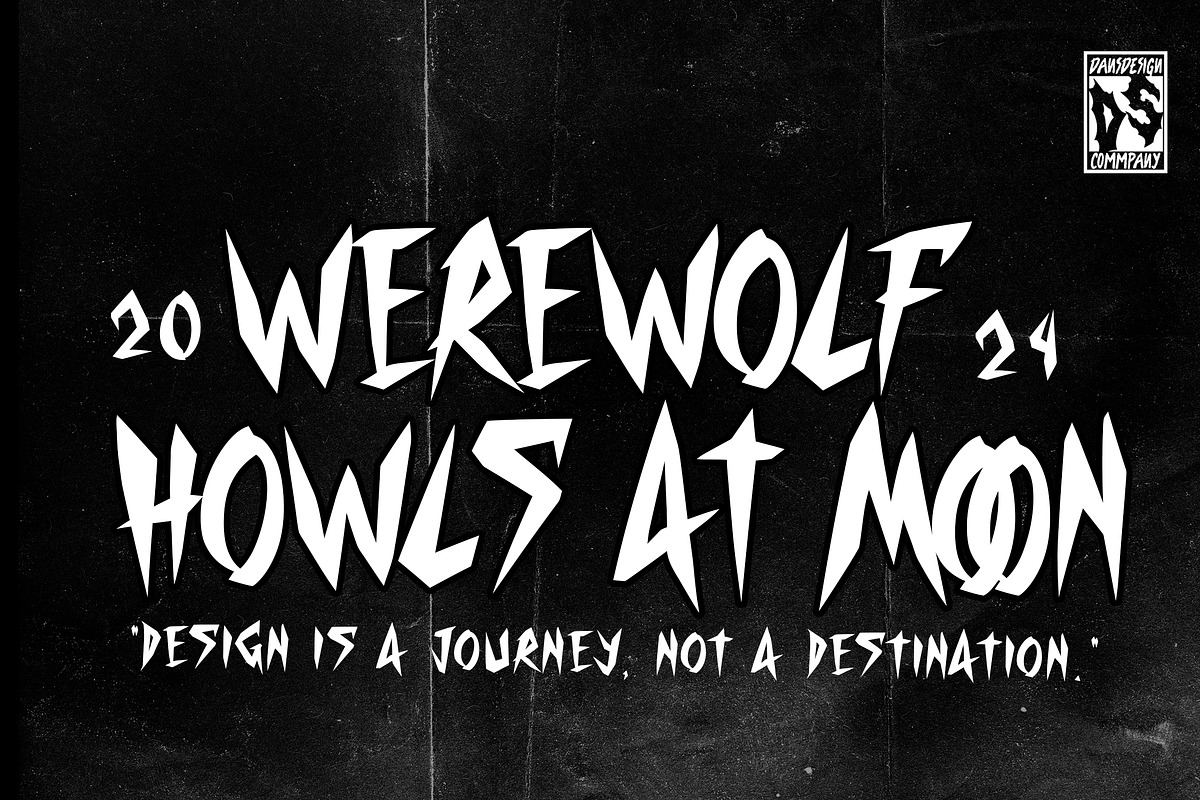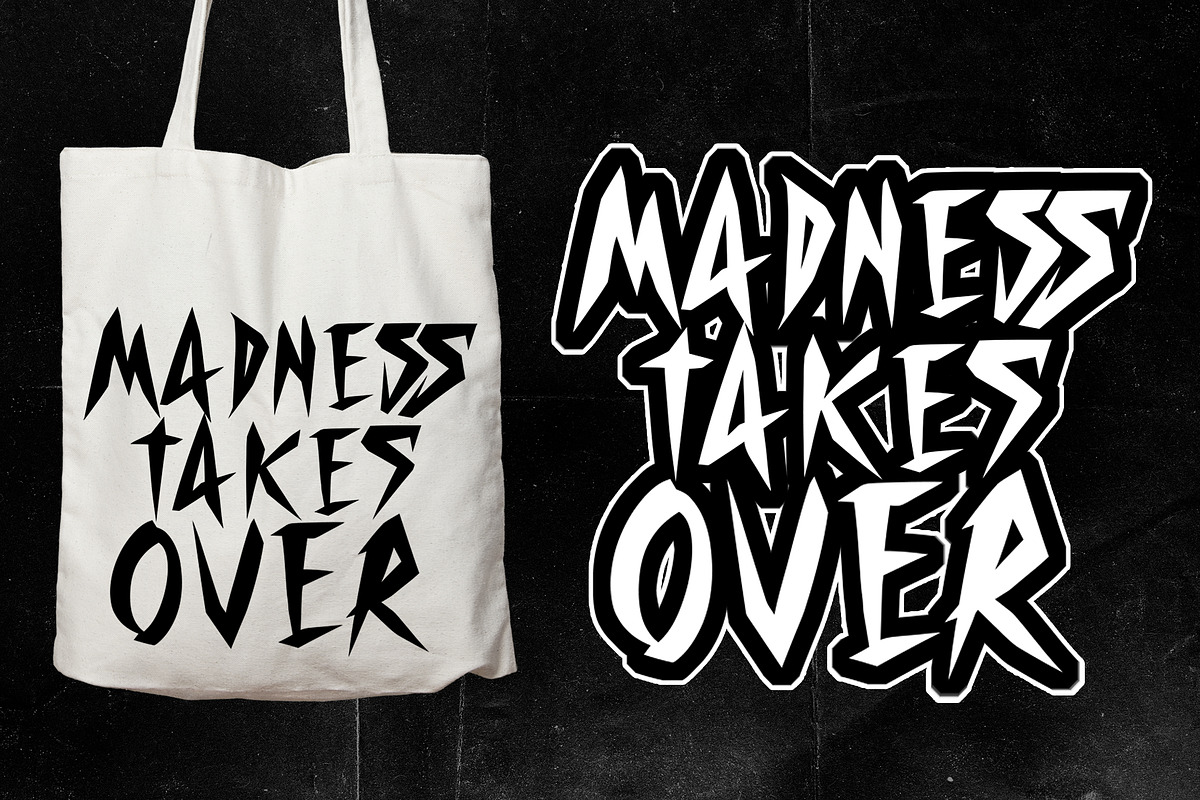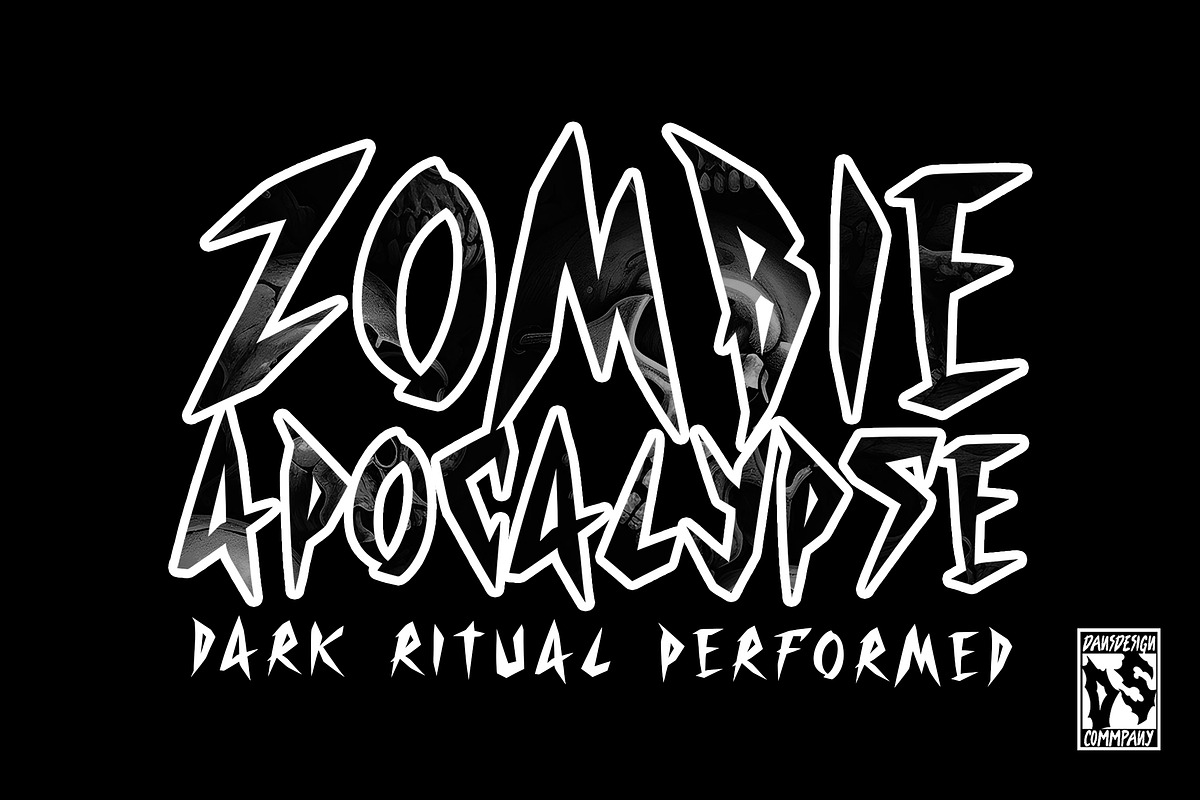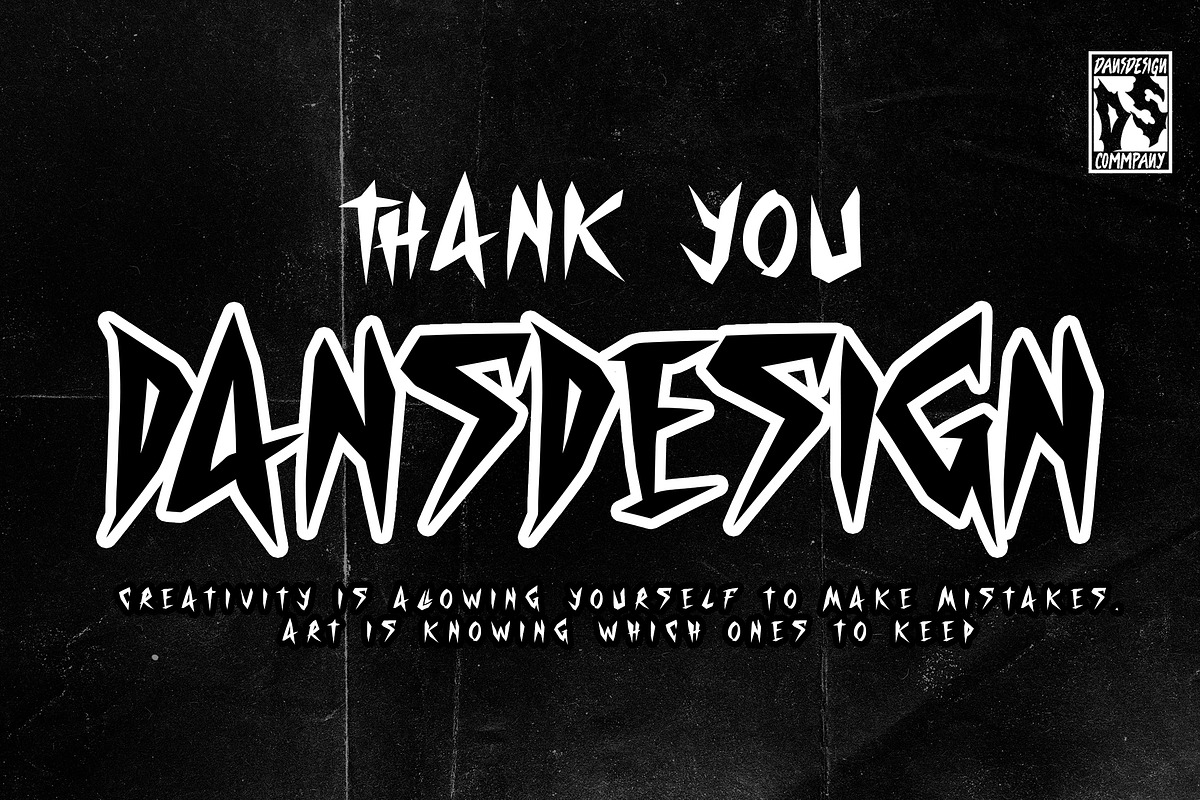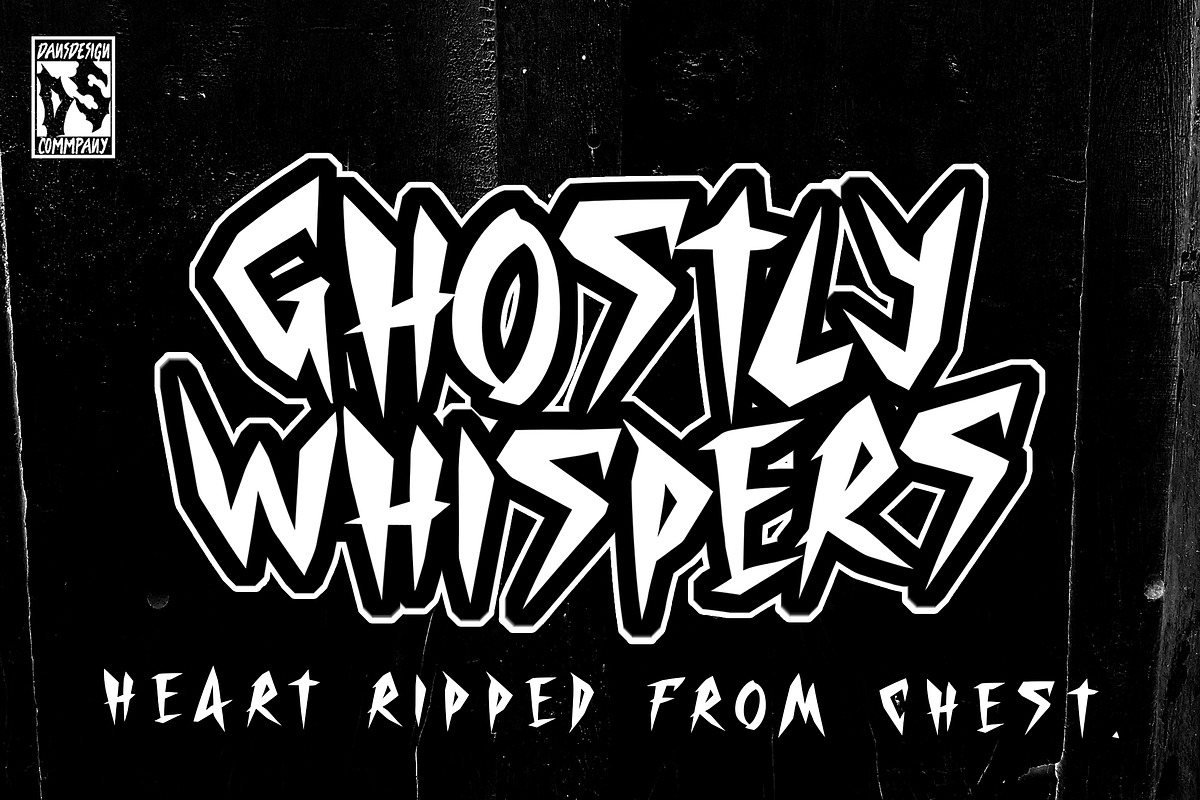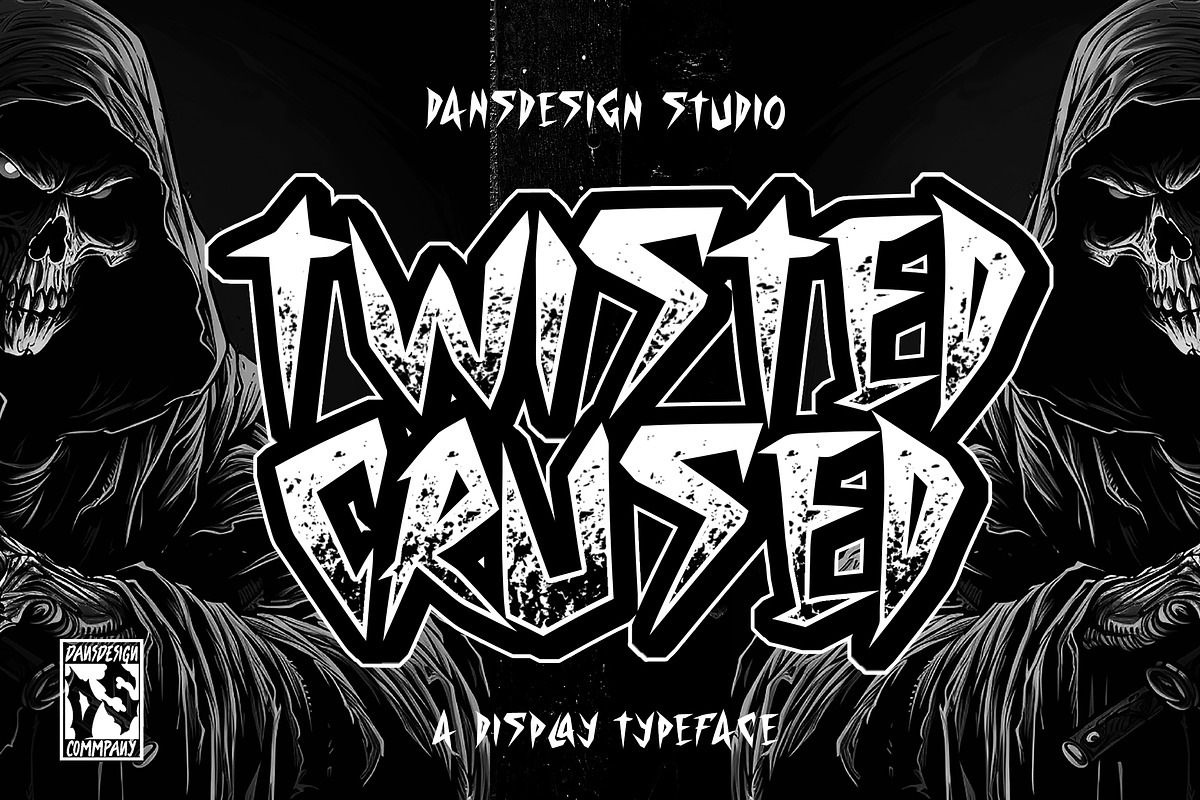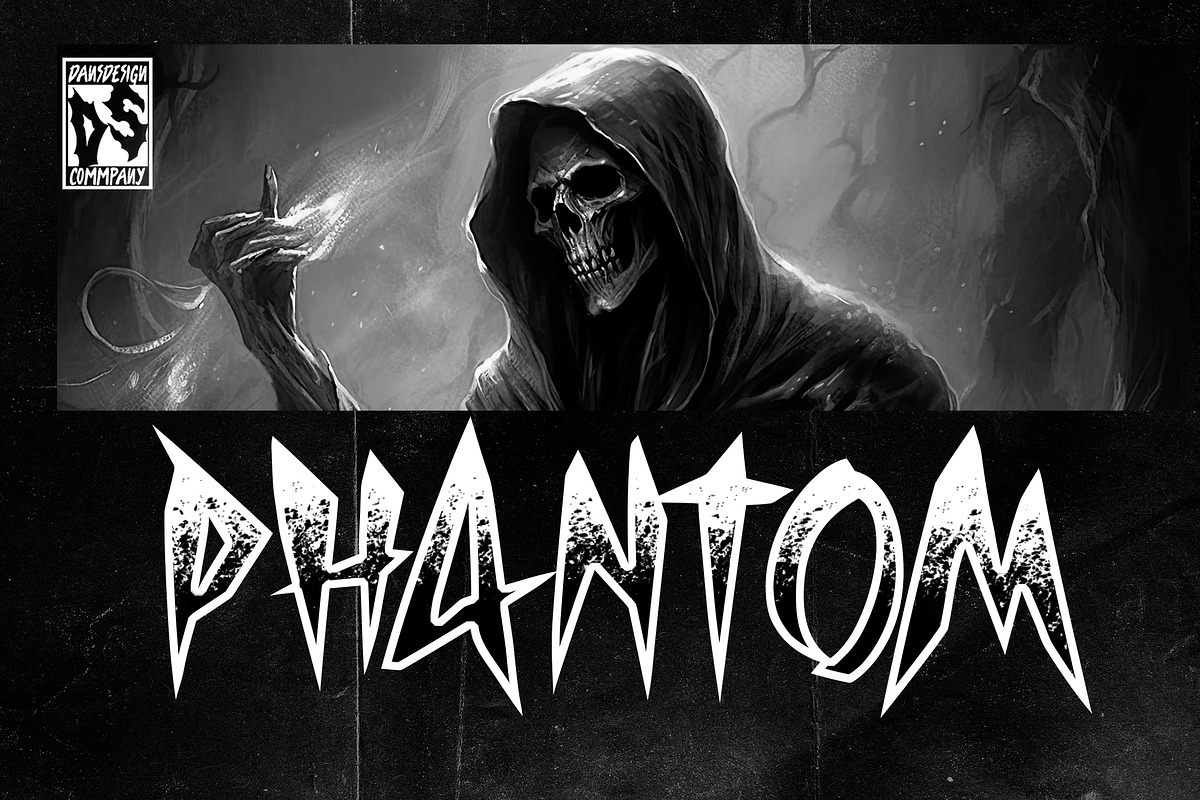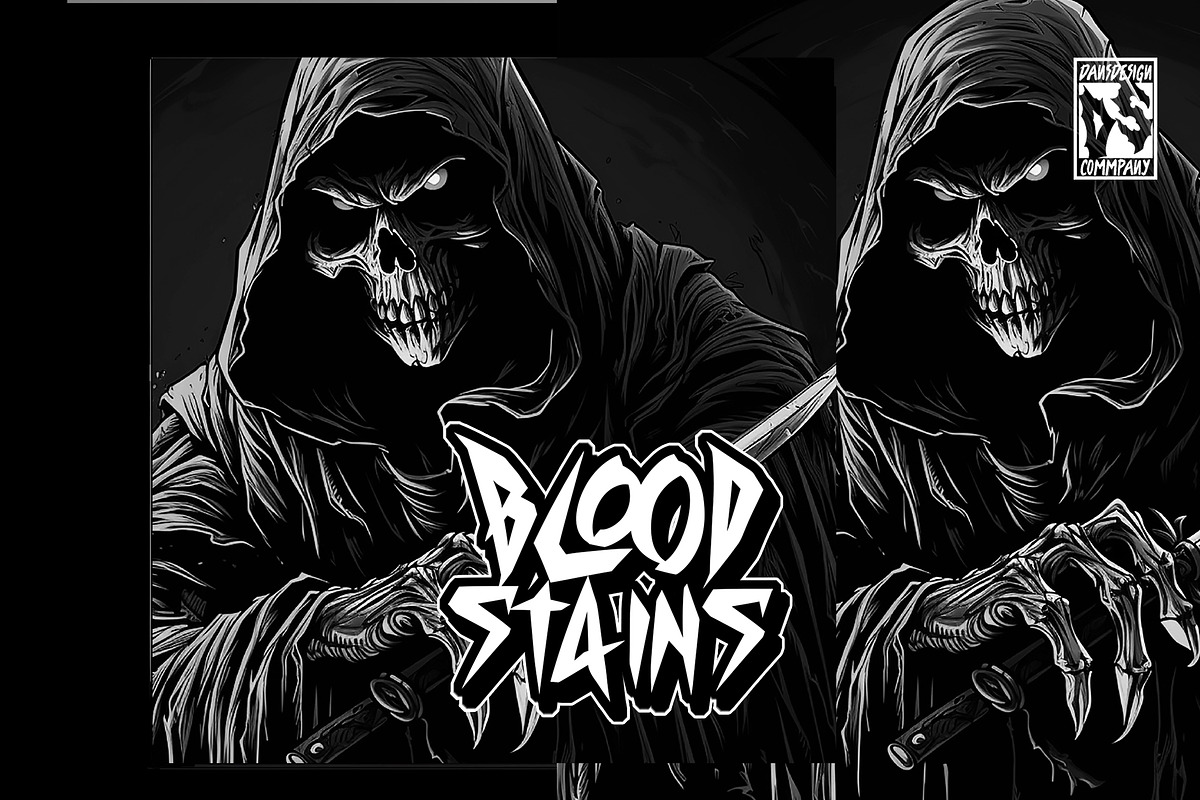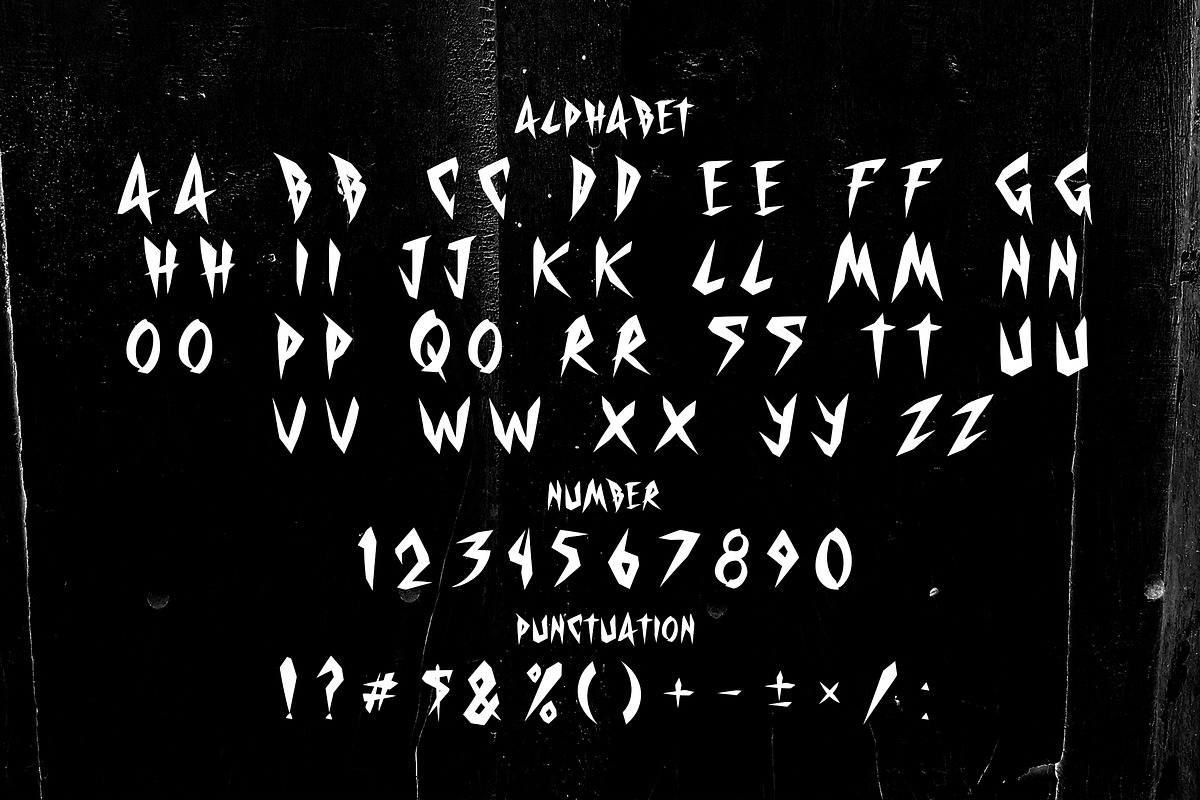
Twisted Crused Halloween Marker
Twisted Crused Halloween Horror Marker
Twisted Crused Halloween Horror Marker a distinct, highly detailed. Marker Display Font. It would make a great choice for exquisite retro-urban designs, business branding, logos, Apparel designs, and more.
Featured : Accents (Multilingual characters) PUA encoded Numerals and Punctuation (OpenType Standard)